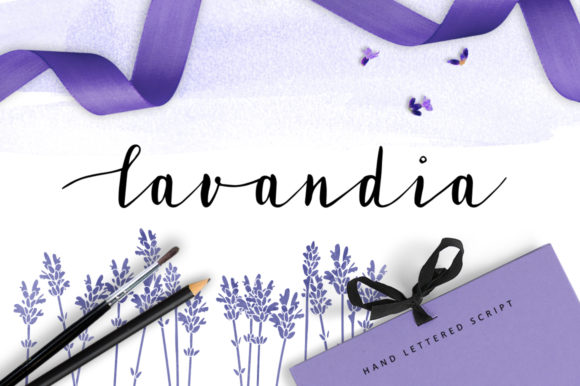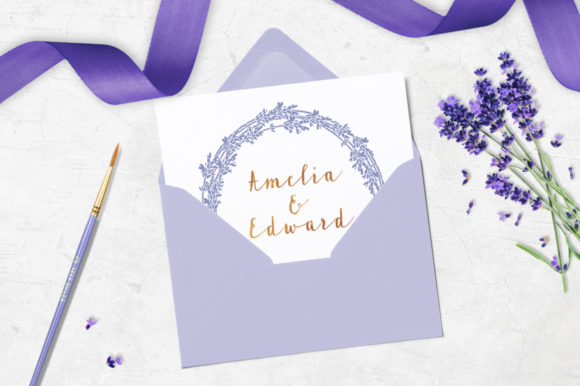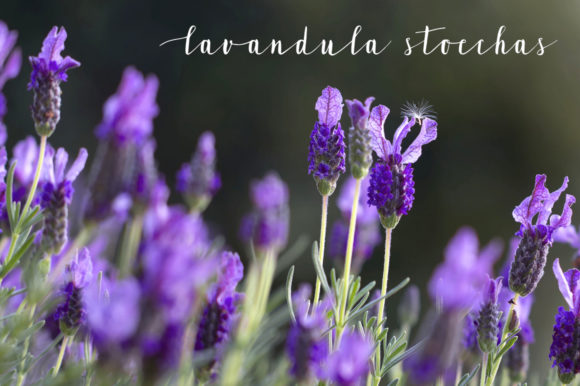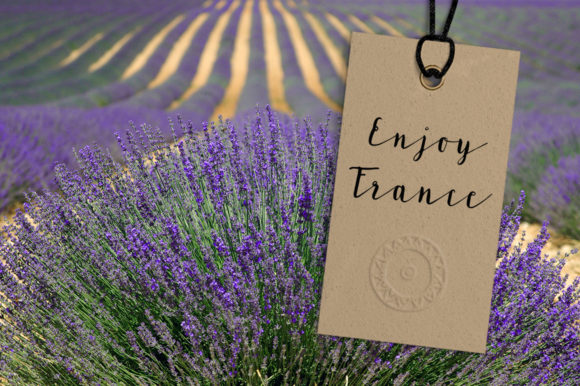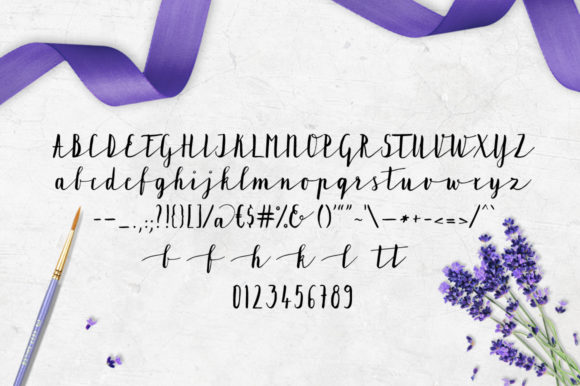
HomeScript FontsLavandia Font Script Fonts Lavandia Font FacebookXPinterestWhatsApp Lavandia Font Poster 2 Lavandia Font Poster 3 Lavandia Font Poster 4 Lavandia Font Poster 5 About Lavandia Font Lavandia is a soft and warm handwritten font with a natural feel. Get inspired by its unique charm. DOWNLOAD ON CREATIVE FABRICAThis font is sold and delivered by Creative Fabrica. Font Canyon may earn a commission if you buy through this link. People also explored Glamour & Beauty Font Benders Font Green House Font Rathya Brooklyn Font Guidebook Alphabet Blocks Font Lovely Loquacious Font Qulino Font 415 0 TagsLavandia Font Previous articleSky Love FontNext articleCaramel Sundae Font LEAVE A REPLY Cancel reply Comment: Please enter your comment! Name:* Please enter your name here Email:* You have entered an incorrect email address! Please enter your email address here Website: Save my name, email, and website in this browser for the next time I comment. Personal Use Free Kredit Personal Use Free Read more about this font Omellia Personal Use Free Read more about this font Electroharmonix Personal Use Free Read more about this font Happy Camping Personal Use Free Read more about this font BLOG Top 7 Google Fonts Alternatives for Faster and Privacy-Friendly Web Design (2025) Top 7 Google Fonts Alternatives for Faster and Privacy-Friendly Web Design (2025) When it comes to web typography, Google Fonts has long been the go-to... Best Fonts for T-Shirt Design – Top 2025 Picks Using Fonts in Digital Marketing: Tips to Strengthen Your Brand Identity The 10 Best Handwriting Fonts to Add Personality to Your Designs